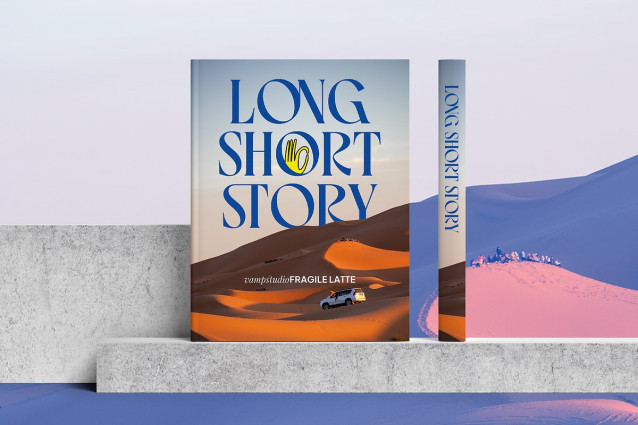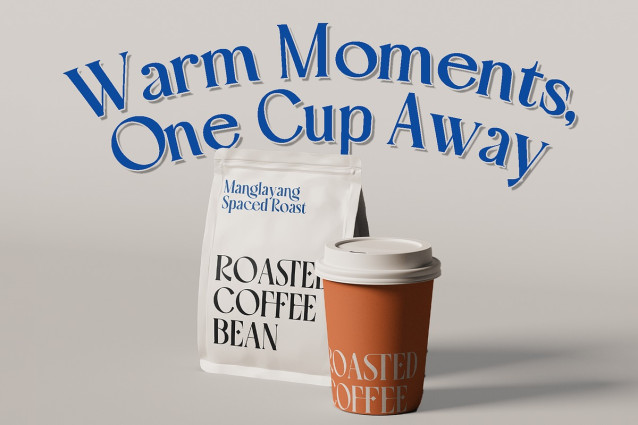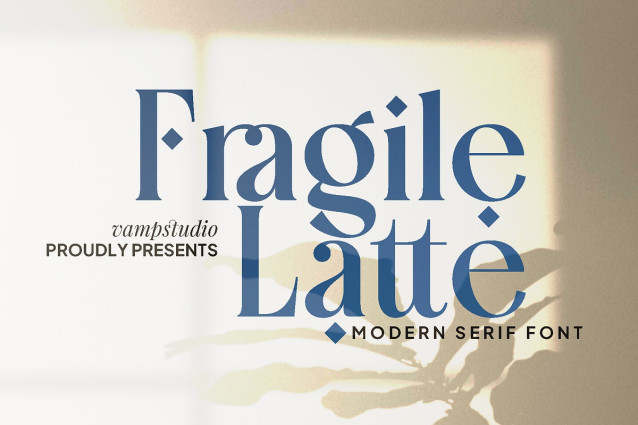
Fragile Latte Font
Fragile Latte Font brings a refined balance of elegance and personality to modern typography. Its high-contrast strokes, sculpted serifs, and expressive curves create a distinctive presence in logos, packaging, and editorial layouts. A rich set of alternates and meticulously crafted ligatures give designers the ability to shape truly customized wordmarks and headlines. Versatile yet artistic, Fragile Latte works beautifully in boutique branding, luxury products, magazines, invitations, and premium digital media. With full character support and smooth kerning adjustments, this typeface delivers professional quality across both print and digital applications.